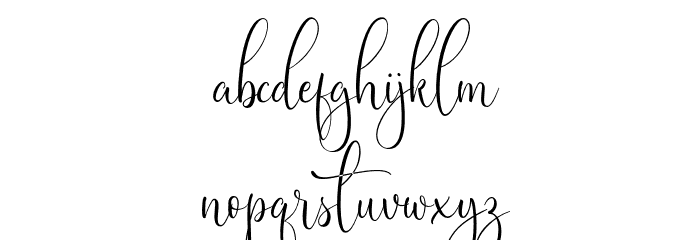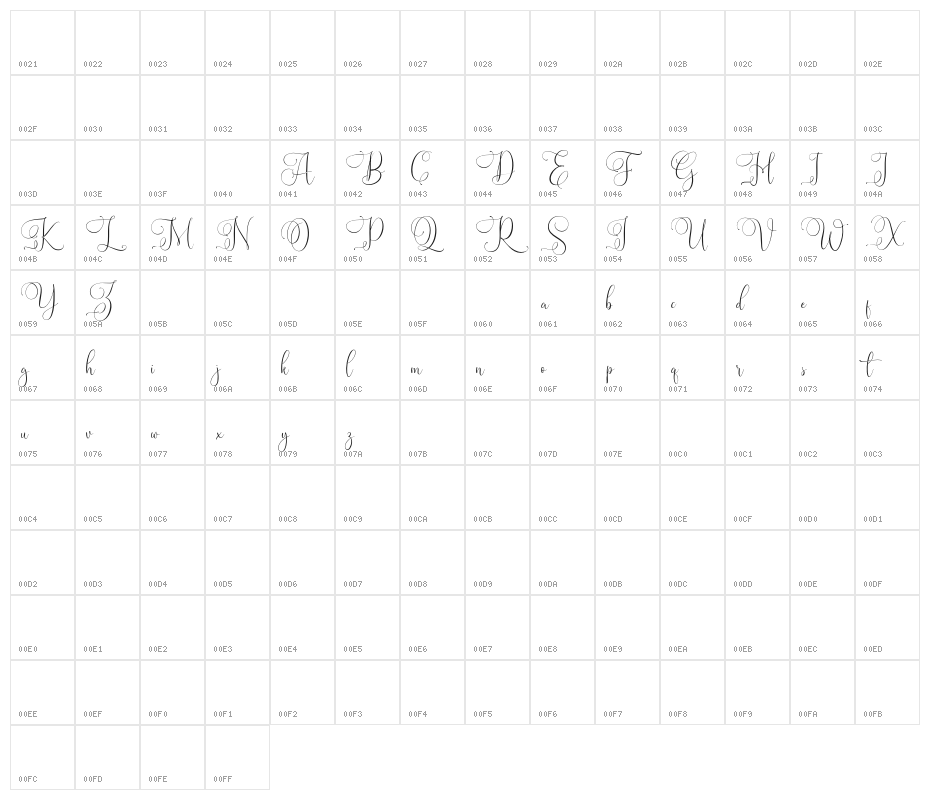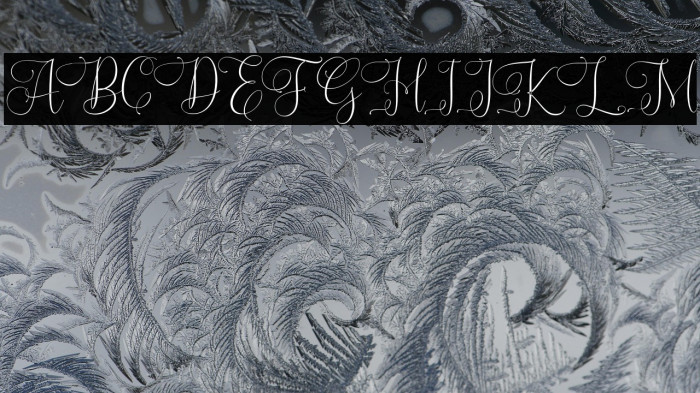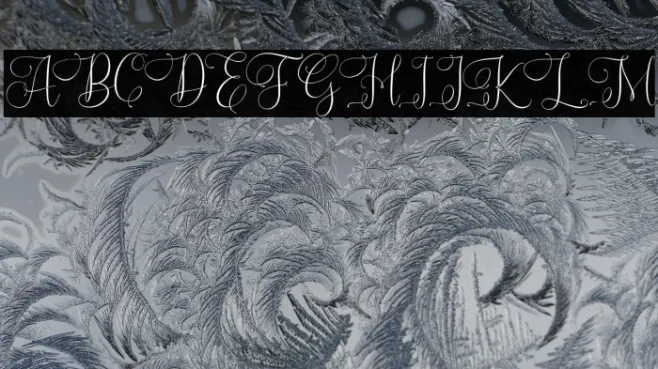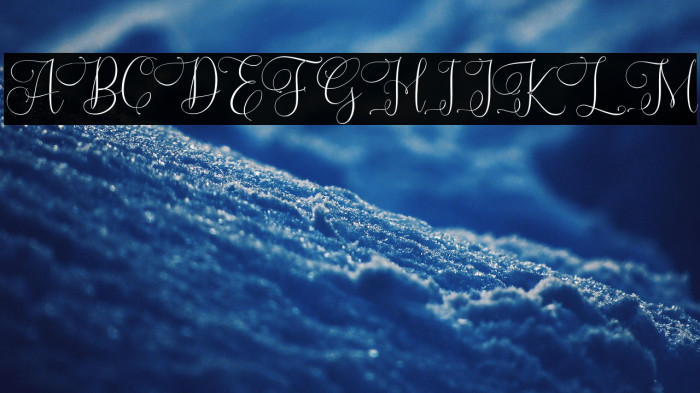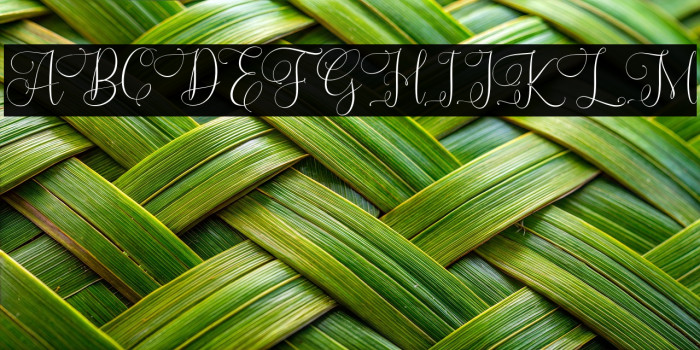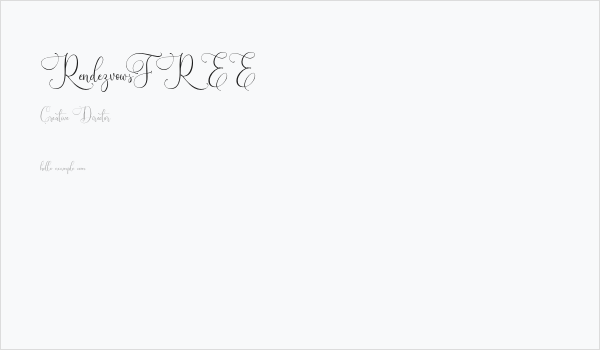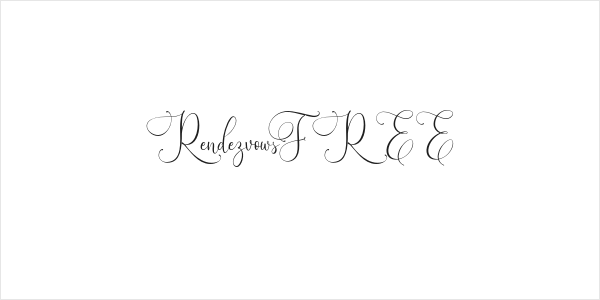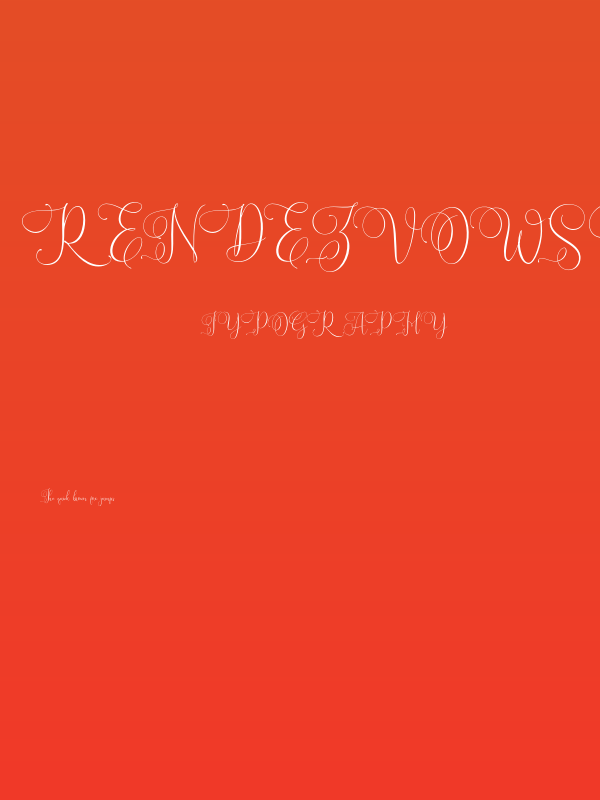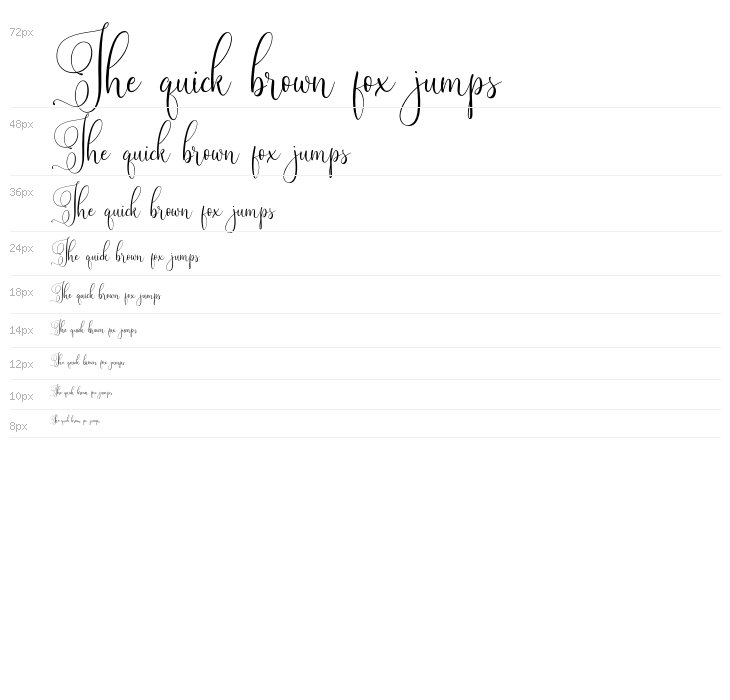
RendezvowsFREE Font
This font exudes elegance and sophistication with its intricate script style. The characters are adorned with delicate swirls and flourishes, giving it a romantic and whimsical appearance. Each letter flows seamlessly into the next, creating a sense of continuity and grace. The uppercase letters are particularly ornate, with elaborate loops and curves that add a touch of grandeur. The lowercase letters maintain a consistent style, with gentle curves and a slightly elongated form. This font is perfect for adding a touch of elegance to any design project, whether it's for wedding invitations, greeting cards, or branding materials.
An elegant script font with intricate swirls and flourishes.
- Font: RendezvowsFREE
- Proposed Projects: Ideal for wedding invitations, greeting cards, and elegant branding materials.
- Category: Script
- Overall Style: Elegant, Romantic
- Use Case: Headlines, Invitations, Logos